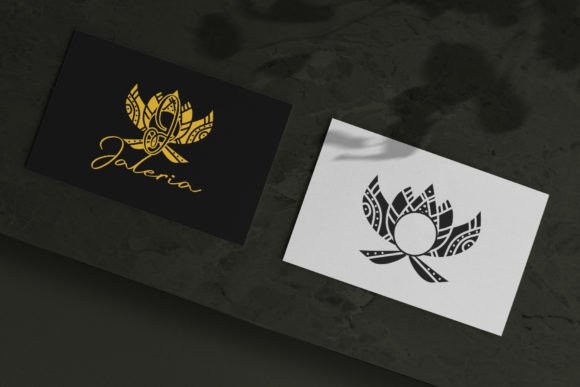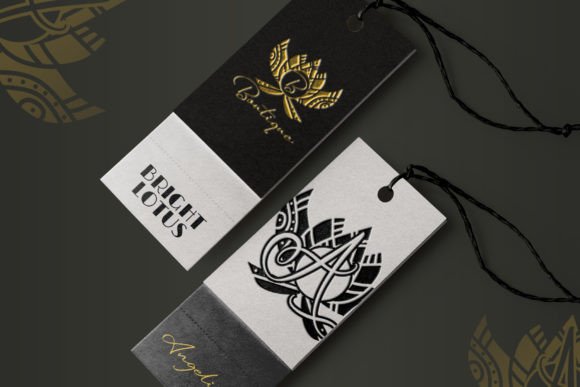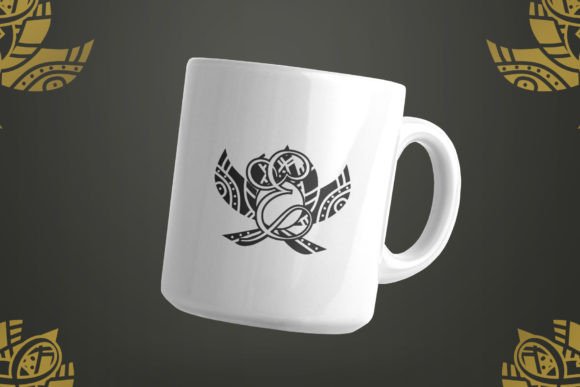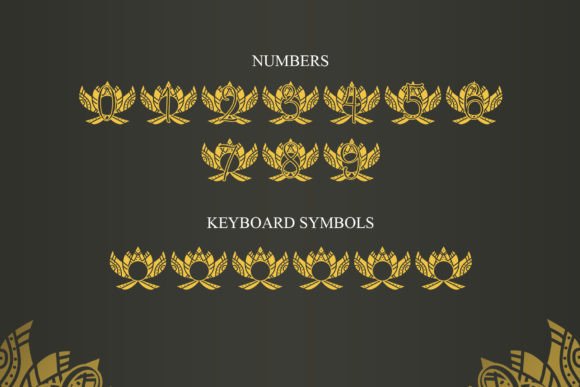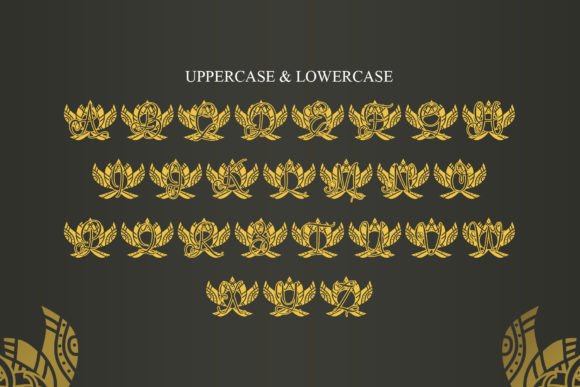
Introducing the Bright Lotus Mandala Monogram Font: Elevate Your Designs with Elegance
In the world of design, fonts play a crucial role in conveying the essence and aesthetic of a project. For crafters, logo designers, and artists looking for that special touch of elegance and uniqueness, the Bright Lotus Mandala Monogram Font is a game-changer. Inspired by the intricate beauty of mandala art, this decorative font is set to transform your designs, crafts, and logos into stunning pieces of art.
The Essence of Mandala Art in Typography
Mandala art, known for its intricate and symmetrical patterns, has been a symbol of spiritual and cultural significance across various civilizations. The Bright Lotus Mandala Monogram Font captures the essence of this ancient art form, translating its elegance and spiritual depth into a typographic masterpiece. Each letter in this font is meticulously designed to reflect the harmony and beauty found in mandalas, making it an ideal choice for designers seeking a touch of sophistication and mystique in their work.
Versatility and Application
The Bright Lotus Mandala Monogram Font is not just limited to a specific type of project; its versatility allows it to be used across a wide range of applications. Whether you’re crafting a logo that needs a unique flair, designing a collection of artistic prints, or simply looking to add an elegant touch to your stationery, this font is perfectly suited to meet your creative needs.
- Logo Design: Stand out with a logo that embodies elegance and creativity. The unique monogram designs can be used to represent your brand’s identity in a sophisticated and artistic manner.
- Crafting and DIY Projects: Add a personal touch to your craft projects, such as handmade cards, scrapbooking, and textile designs, with the intricate and beautiful monograms.
- Stationery and Invitations: Elevate your stationery, wedding invitations, or event announcements with a font that spells out luxury and attention to detail.
- Digital Art and Printmaking: Incorporate the font into your digital art, posters, and prints to give them a distinctive and artistic edge.
Why Choose the Bright Lotus Mandala Monogram Font?
In a sea of fonts, the Bright Lotus Mandala Monogram stands out for several reasons:
- Uniqueness: Its inspiration from mandala art ensures that your designs will have a distinct and exotic appeal.
- Elegance: The font exudes a sense of luxury and sophistication, perfect for projects that require a high-end feel.
- Versatility: Its wide range of applications makes it a valuable addition to any designer’s toolkit.
The Bright Lotus Mandala Monogram Font is more than just a typeface; it’s a statement of elegance, creativity, and individuality. For designers and crafters looking to infuse their work with a sense of luxury and artistic flair, this font is an invaluable resource. With its roots in the spiritual and aesthetic depth of mandala art, it offers a unique opportunity to elevate your designs and make them truly unforgettable.
Unlock the full potential of your creative projects with the Bright Lotus Mandala Monogram Font. Experience the fusion of ancient art and modern design, and let your work speak volumes about your aesthetic sensibilities and attention to detail.